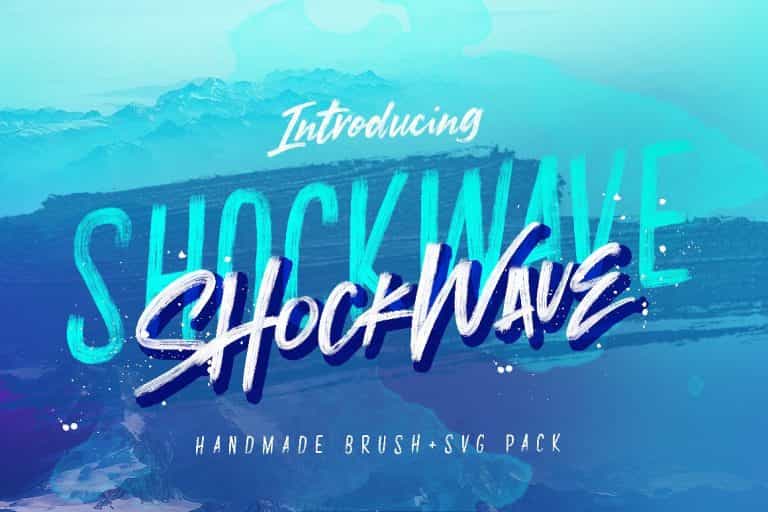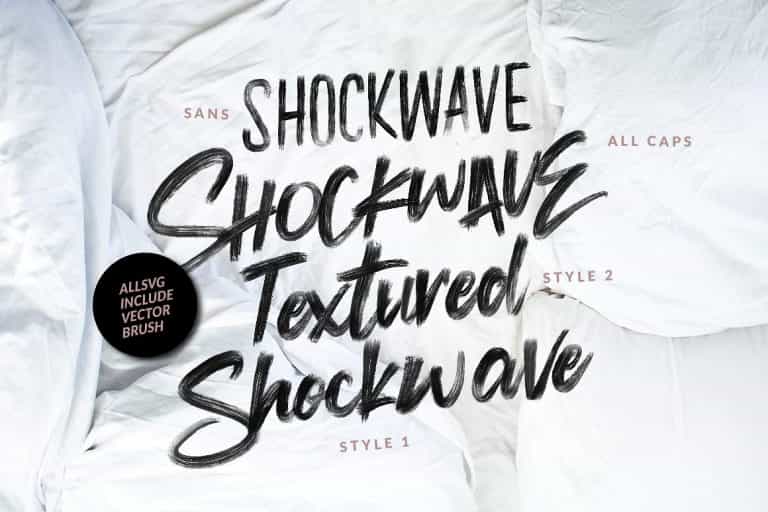
Discover Shockwave Brush Font, part of the Brush collection—a versatile and unique font perfect for adding a personal touch to your projects. Download it for free and enjoy crafting designs with style, from invitations to social media posts. This font is available exclusively for personal use, giving you the freedom to create without limits. Unlock your creativity with Shockwave Brush Font today!
Introducing Shockwave Font – Created with love! User-friendly! Elevate your text with Shockwave SVG Font, including a high-definition, transparent brush texture. Photoshop CC 2018 or Illustrator CC 2018 and newer are required.